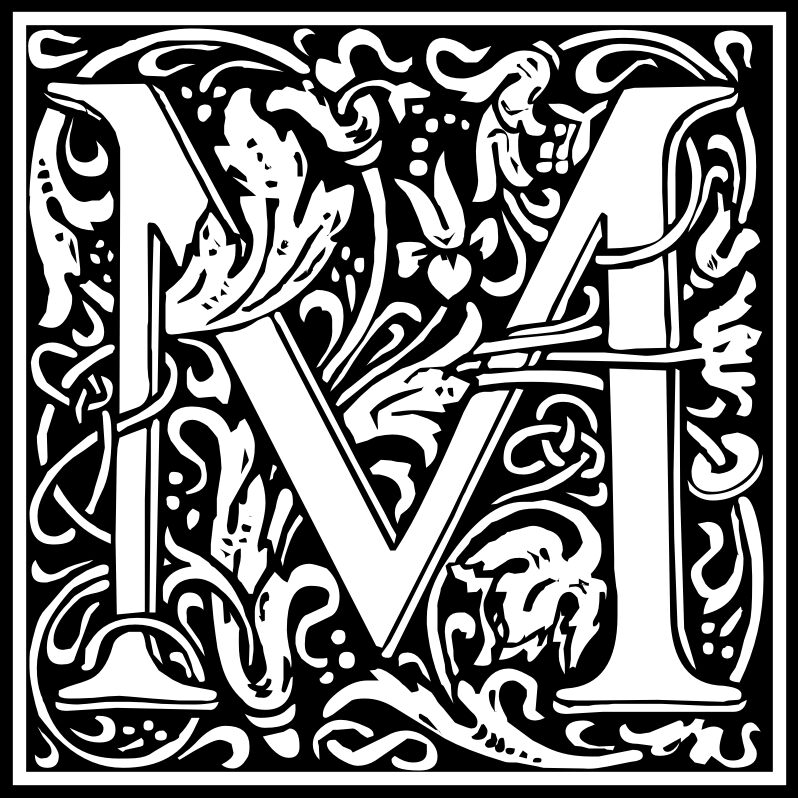
Morris Less Negative
The initials of the font were created by William Morris, the nineteenth century artist, and my contribution is minimal in this case. Even if I would like to clean a few lines, it wouldn't raise to the quality of the original work or the accidents resulted by scans, prints and most probably reproductions through a very long time.
The filler font is Virgula Vulgaris Bold, a personal serif font, just to complement the initials. This is not mandatory, any font will be secondary, anyway. The initials from A to Z will support any Latin language that will not start with an accented letter. It's hard to imagine how could anyone fit a diacritic among the leaves.
William Morris Initials font